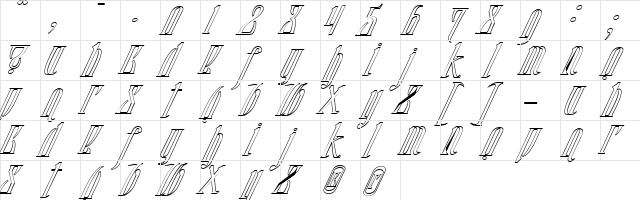
Death Spell Outlines Regular
Design Context for Death Spell Outlines Typeface
Death Spell Outlines carries an unsettling edge — its distorted letterforms are built to unsettle, perfectly suited to horror, Halloween, and dark creative work.
Ideal for Halloween projects, horror film titles, haunted house signage, and dark editorial design.
Font Pairing: Pair with a clean neutral sans-serif for body copy to let Death Spell Outlines's character lead without overwhelming the composition.
Pro Tip: Death Spell Outlines works best as a headline or focal element. Pair it against plain, neutral body text to amplify the contrast.